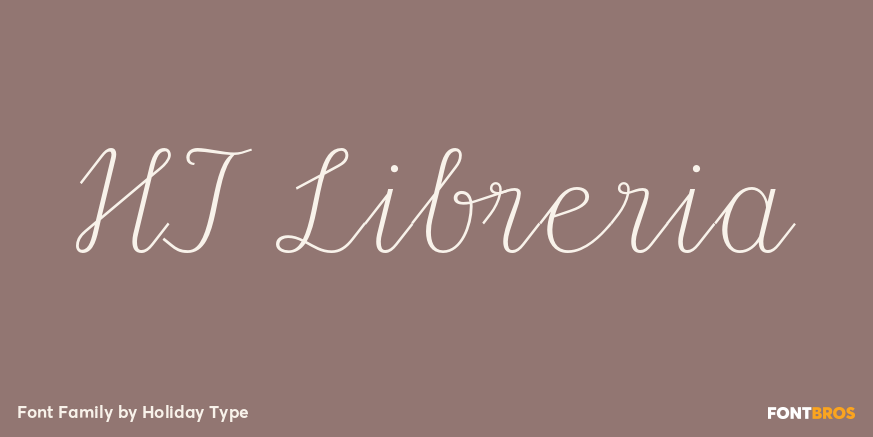
HomeFont BrosHandwrittenHT Libreria HandwrittenScripts: FormalScripts: Casual HT Libreria FacebookXPinterestWhatsApp 1 of 1 About HT Libreria Retro script based on shopfront lettering, wallpaint advertisements in Italy around 1950s.  DOWNLOAD NOW People also explored Be Yourself Font Banteng Font Great Authorized Font Arrival Font Drawing Kachang Font Brother Lands Font Bedda Font Clarenwood JNL Font 296 0 TagsHT Libreria Font Previous articleGrange RoughNext articleKranky Pro LEAVE A REPLY Cancel reply Comment: Please enter your comment! Name:* Please enter your name here Email:* You have entered an incorrect email address! Please enter your email address here Website: Save my name, email, and website in this browser for the next time I comment. Personal Use Free Avatarock Personal Use Free Read more about this font Nottingsam Personal Use Free Read more about this font Vivacious Personal Use Free Read more about this font Lover Loves Personal Use Free Read more about this font BLOG Free Fonts Risk: Why Free Fonts Can Be Dangerous for Designers Free Fonts Risk: Why Free Fonts Can Be Dangerous for Designers Using free fonts is a common practice in web and graphic design. However, the... Elegant Wedding Invitation Fonts – Handwritten & Script Fonts Transform Your Website: Elevate Your Typography with 7 Best Web Font Generators Best Fonts for T-Shirt Design – Top 2025 Picks